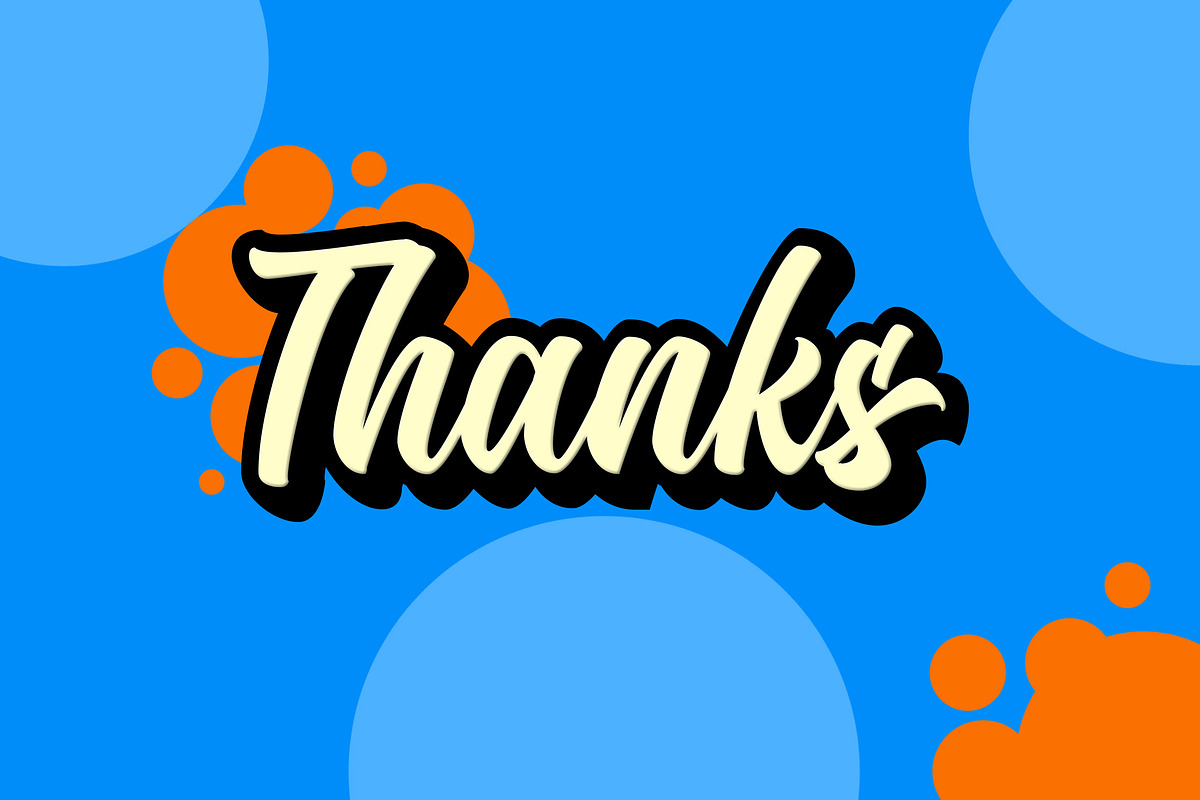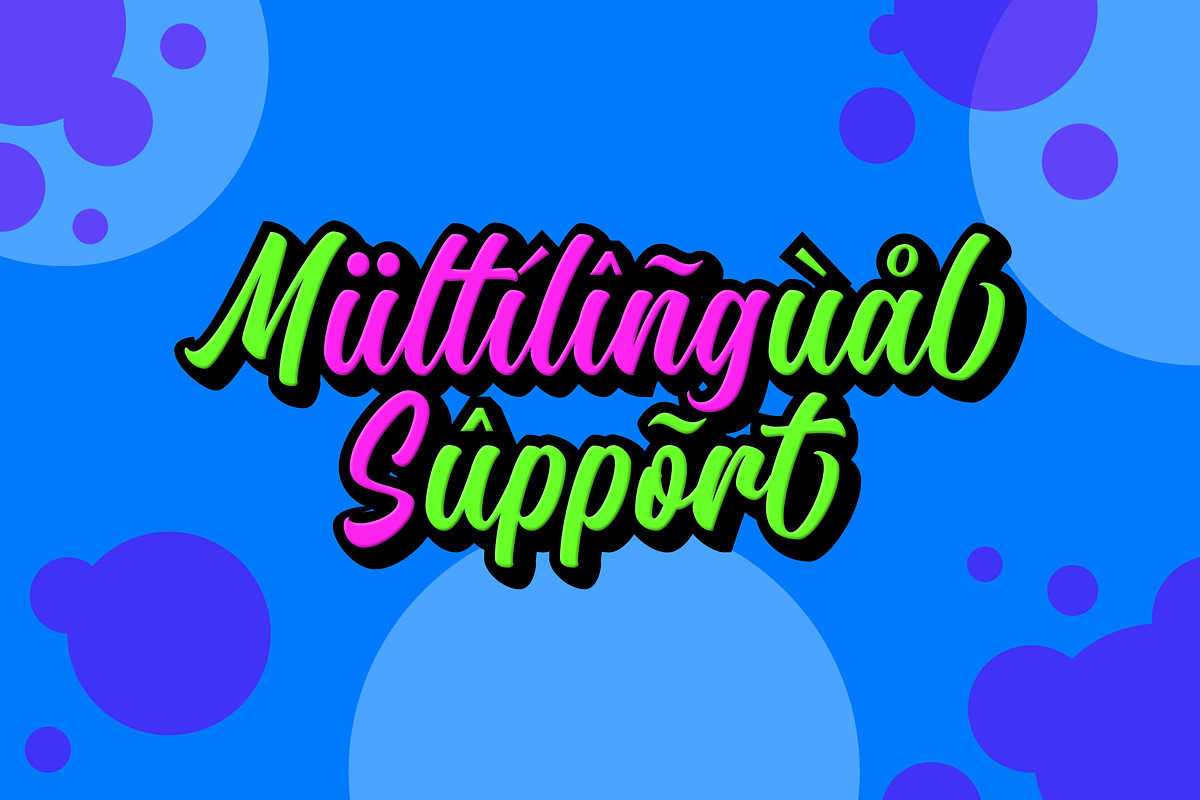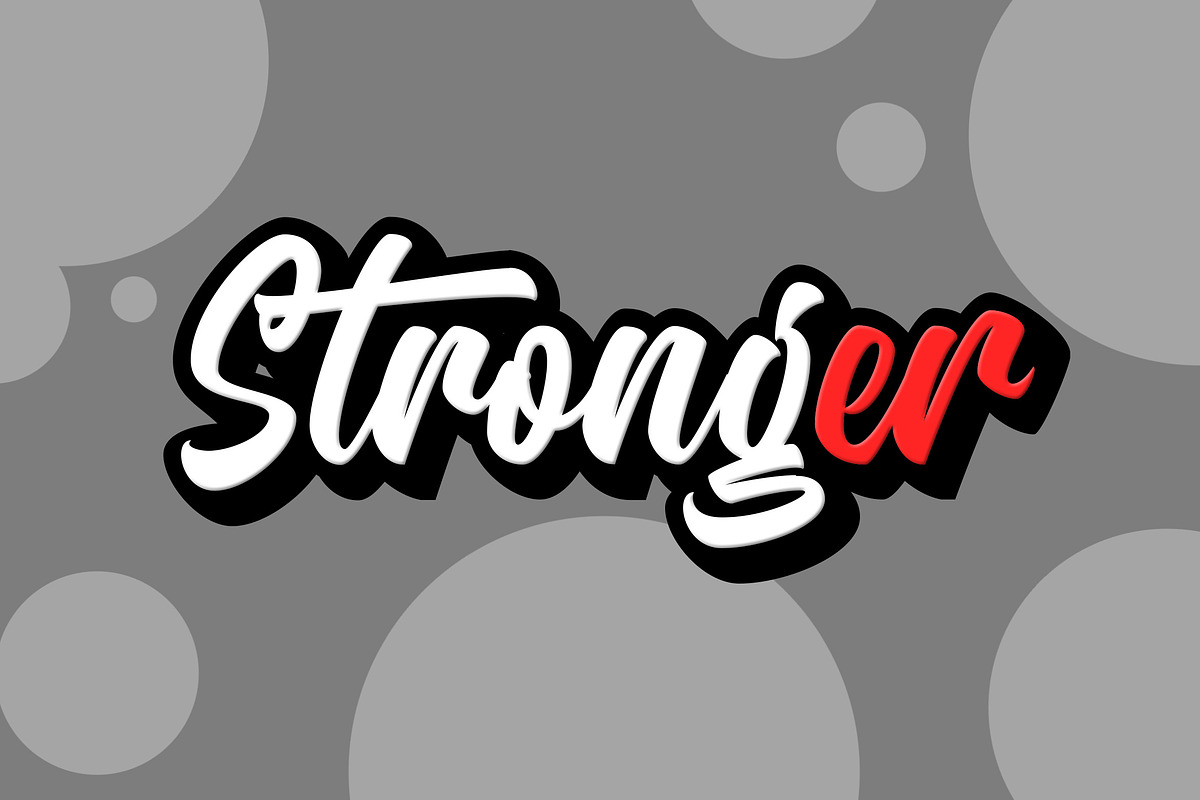
Stonekids - Layered Script
Introducing a new Layered bold script called Stonekids .Stonekids inspired by handlettering, bold script logotype and kids font. Stonekids came with open type features and multilingual accent good for logotype, poster, badge, book cover, tshirt design, packaging and any more.
MULTILINGUAL ACCENT :
ŽžŠŒšŸÀÁÂÃÄÅÆÇÈÉÊËÌÍÎÏÐÑÒÓÔÕÖØÙÚÛÜÝßàáâãäåæçèéêëìíîïðñòóôõöøùúûüýÿ